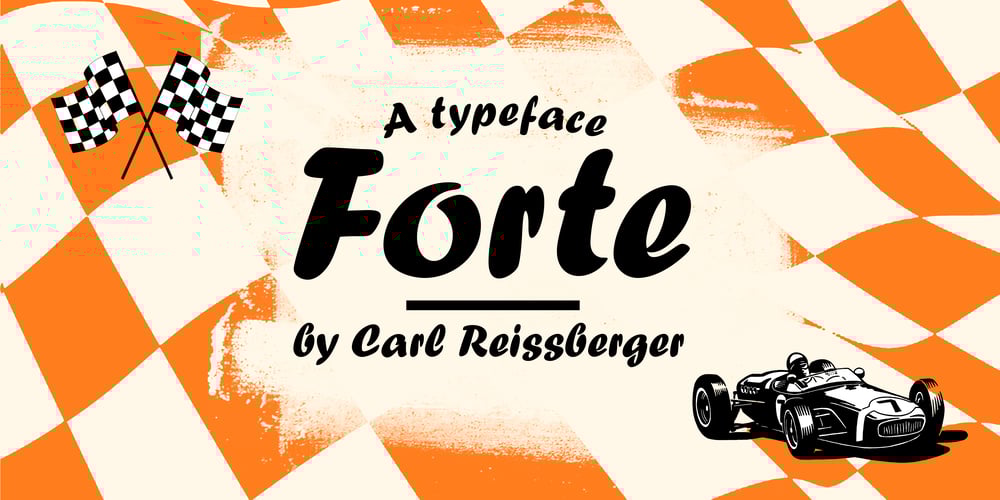
Forte Font Family was designed by Carl Reissberger and published by Monotype. Forte contains 1 styles and family package options. Forte was designed by the Austrian commercial artist by Carl Reissberger who was trained as a compositor and later taught typography and drawing in Vienna. The idea for the Forte script font came from the study of plants, individual letter forms being inspired by the long stems and furry heads of the reed. Slightly inclined, it gives the impression of having been made with a bold brush or marker, and can therefore be used in work that requires an informal appearance. Forte is a strong design which contrasts well with sans serif faces and classical modern types. Use the Forte font in advertising, flyers and labels.